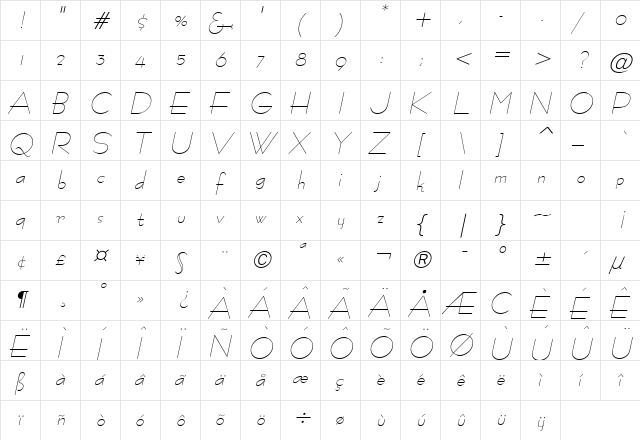
Bernie Italic
Design Context for Bernie Typeface
Bernie is a composed and adaptable typeface that performs quietly and consistently across a wide range of design contexts. The slanted form adds forward momentum and visual energy.
Pro Tip: Use Bernie for emphasis, pull quotes, and subheadings where its slanted energy can add rhythm to the layout.